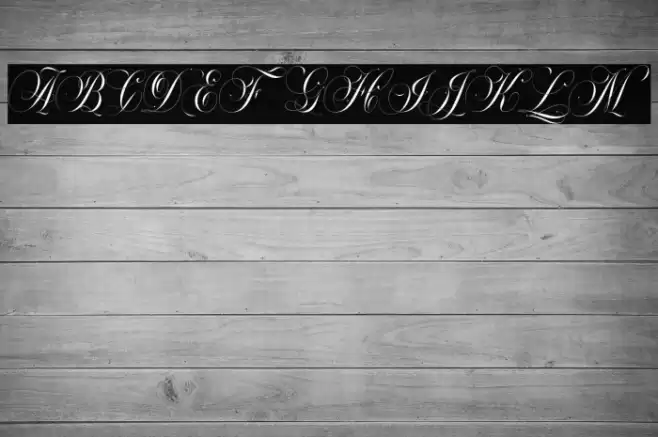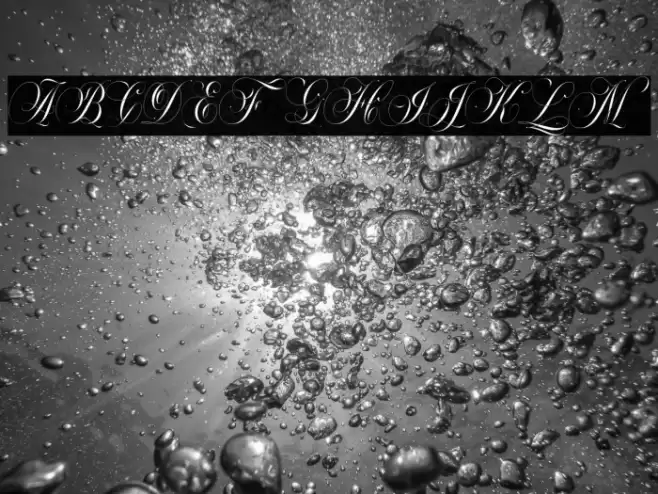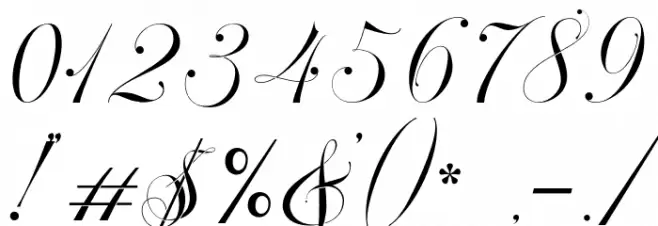
Mallaire-CalligraphyDemo Font
Mallaire-CalligraphyDemo Description
This elegant calligraphy font features flowing, interconnected strokes that exude sophistication and grace. The uppercase letters are adorned with intricate flourishes, while the lowercase characters maintain a smooth, cursive style. The numerals and special characters are crafted with the same attention to detail, ensuring a cohesive look throughout. The font's high contrast between thick and thin strokes adds to its dramatic appearance, making it ideal for formal invitations, branding, and decorative purposes. Its artistic flair and refined style make it a standout choice for projects that require a touch of elegance.
A sophisticated calligraphy font with flowing, interconnected strokes and intricate flourishes from Uncategorized fonts.
- Proposed Projects: Ideal for wedding invitations, luxury branding, elegant stationery, and decorative headlines.